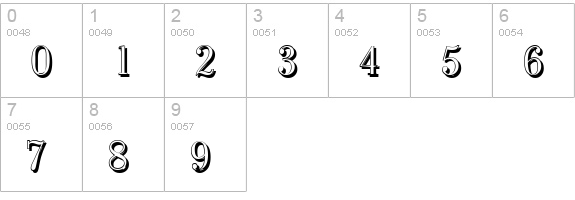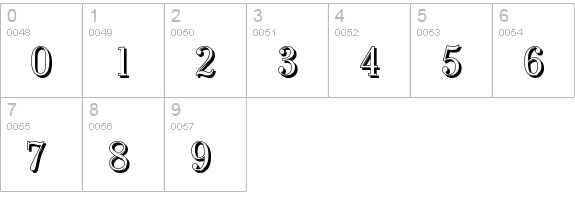
WichitaShadow-Light-Regular is a refined, elegant variant in the WichitaShadow typeface family \xE2\x80\x94 well suited to elegant body text, refined sub-headings, and luxury branding.
WichitaShadow-Light-Regular is a stunning and versatile font that exudes elegance and sophistication. With its delicate yet bold strokes, this font is perfect for a wide range of design projects, from branding to editorial design. The contrasting shadow effect adds a unique touch, making your text stand out with a subtle three-dimensional effect. What's even better is that WichitaShadow-Light-Regular is available for free download at FontsMarket.com. Whether you're a professional designer looking to add a touch of class to your work or a DIY enthusiast wanting to elevate your projects, this font is sure to impress. Don't miss out on the opportunity to enhance your designs with this beautiful typeface today!